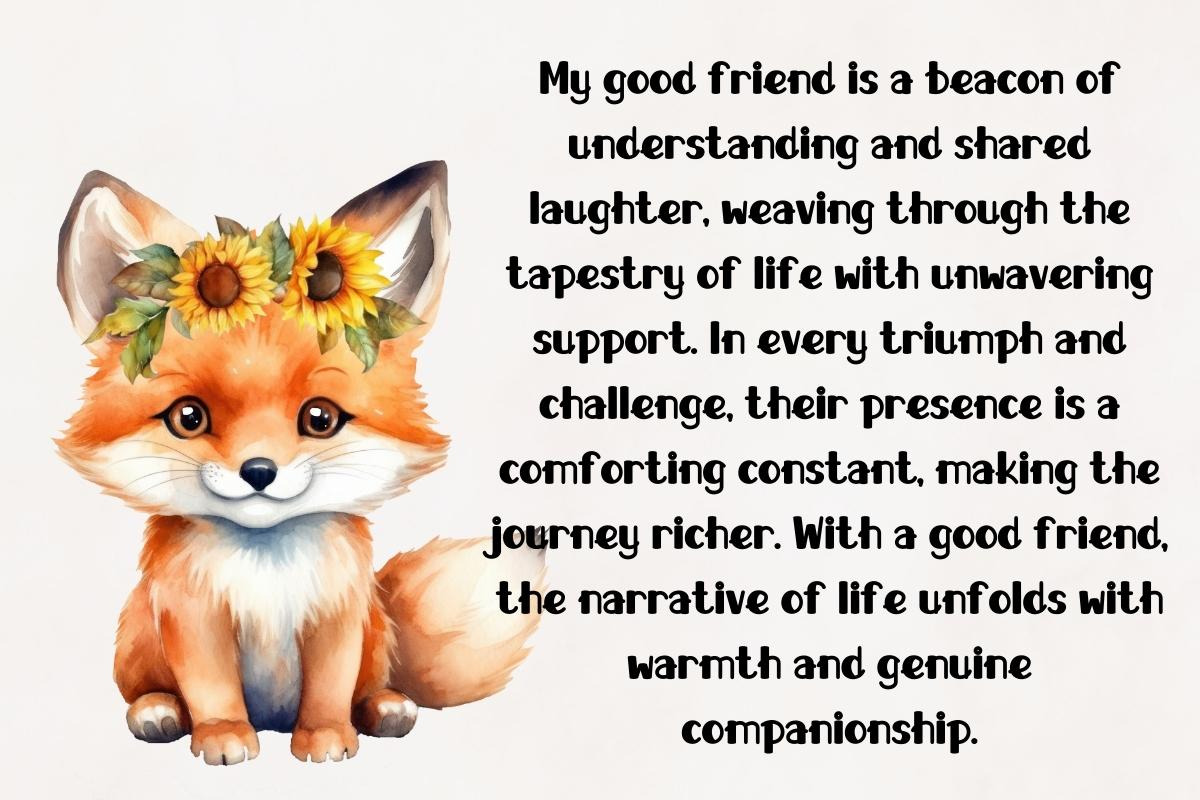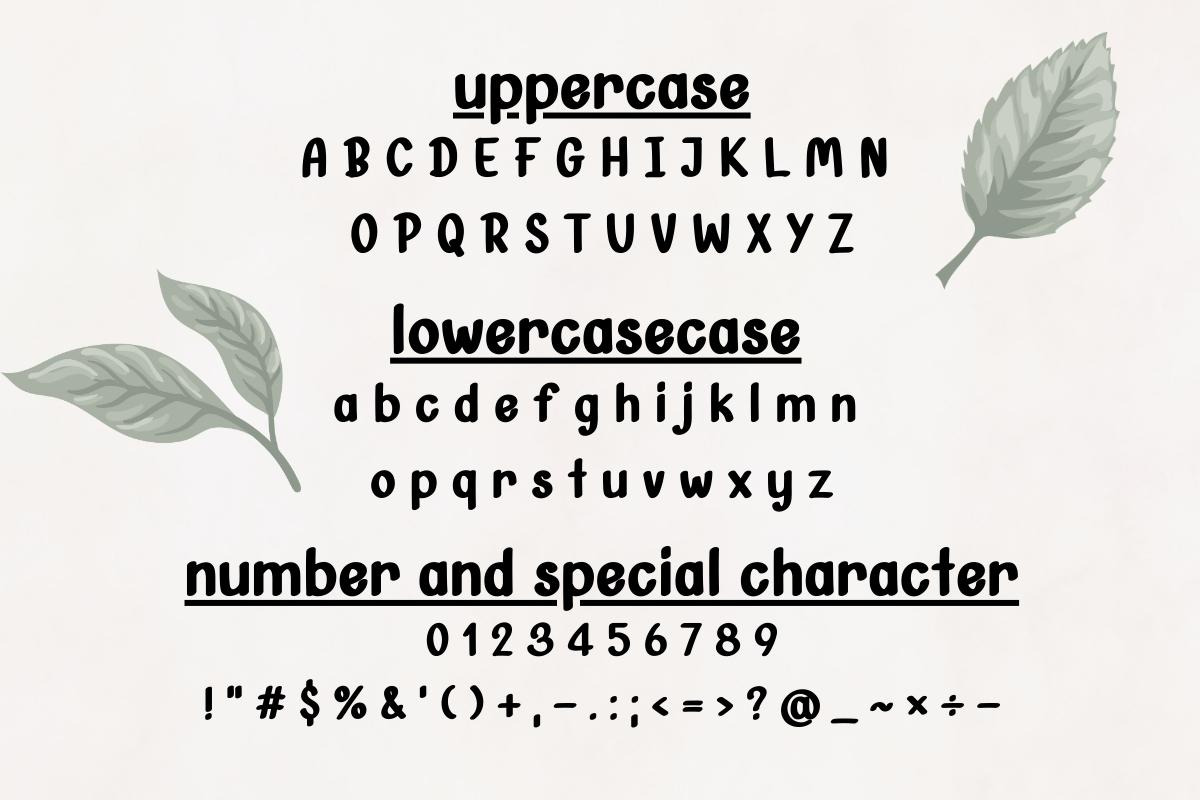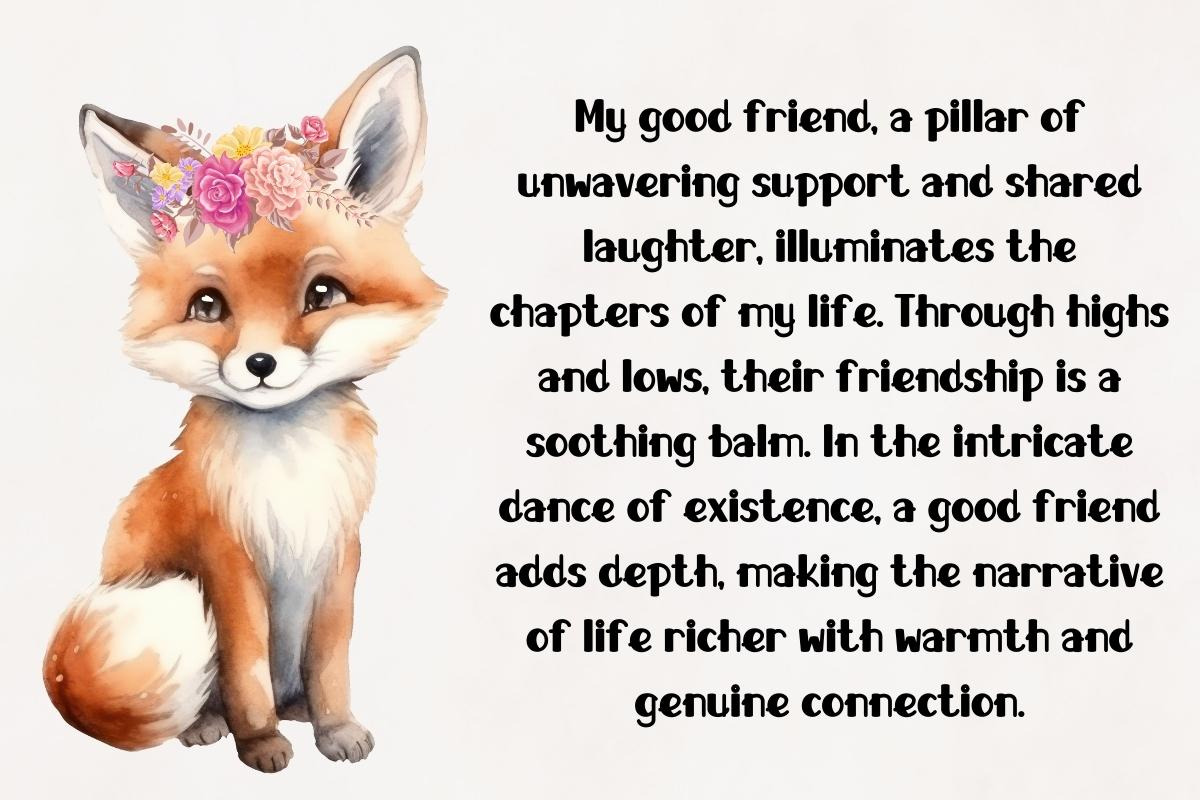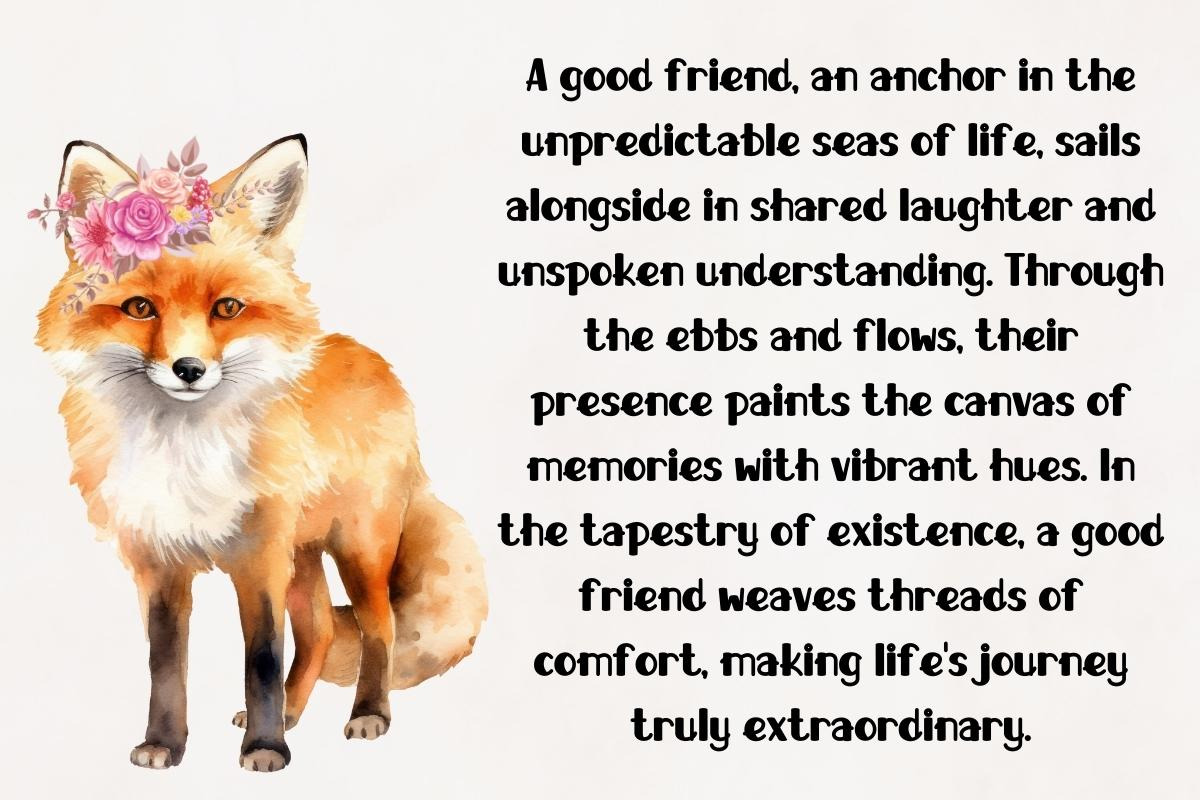
BROWN FOX - Handwritting
Embark on a whimsical typographic journey with "Brown Fox" – a font that dances on the page like mischievous woodland creatures. Crafted with love, it whispers tales of charm and elegance. Let your words frolic with playful strokes and delightful curves. Illuminate your creativity with the enchanting embrace of Brown Fox!